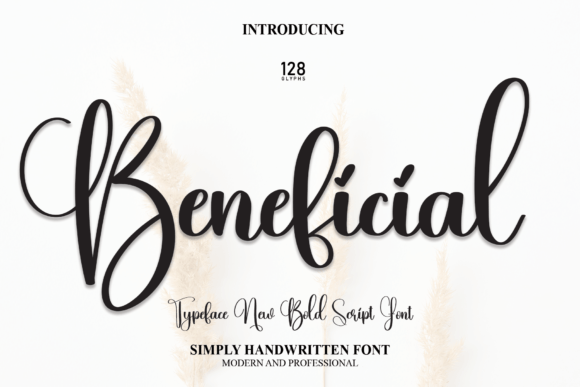
Introducing Beneficial Font: The Ultimate Script Font for Mobile Games
Embark on a typographic journey with Beneficial Font, a captivating script font that spells enchantment and elegance. Inspired by the timeless beauty of calligraphy, Beneficial Font dances across your screen with its graceful strokes and enchanting curves. Its contemporary flair adds a touch of modernity, ensuring your designs stand out in the realm of mobile gaming.
Unleash your creativity and craft mobile games that resonate with players worldwide. Beneficial Font's captivating characters add a layer of sophistication to your gaming interface, captivating users with its charm and legibility. Watch as your players become immersed in your game's narrative, their eyes dancing across the screen, entranced by the allure of Beneficial Font.
Transport your players to fantastical worlds, medieval realms, or futuristic landscapes. Beneficial Font effortlessly adapts to diverse game genres, breathing life into your characters, menus, and storylines. Its versatility knows no bounds, allowing you to create games that leave a lasting impression.